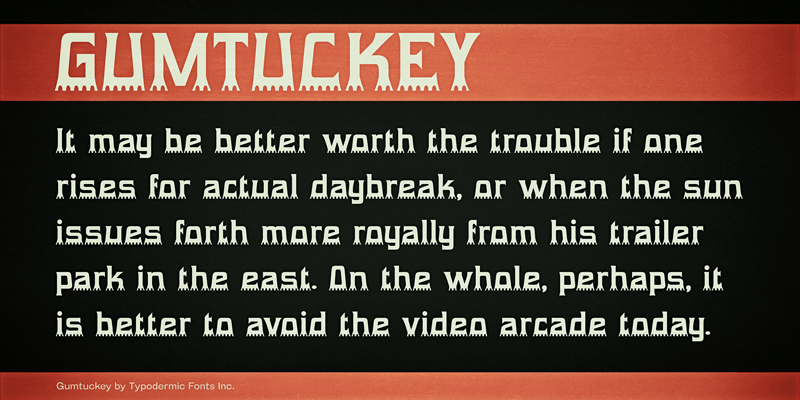
Gumtuckey is a bootular font with traction. This font includes a license that allows free commercial use: sometimes referred to as a desktop license. This allows you to install the font on a computer and use it to create posters, web graphics, game graphics, t-shirts, videos, signs, logos and more. Read the license agreement for details. If you'd like to embed this font in an app, ebook, on the web or anything that's not covered by the desktop license agreement, visit the link below. You'll find distributors who offer different types of licenses or you can contact me for help. http://typodermicfonts.com/gumtuckey/ |